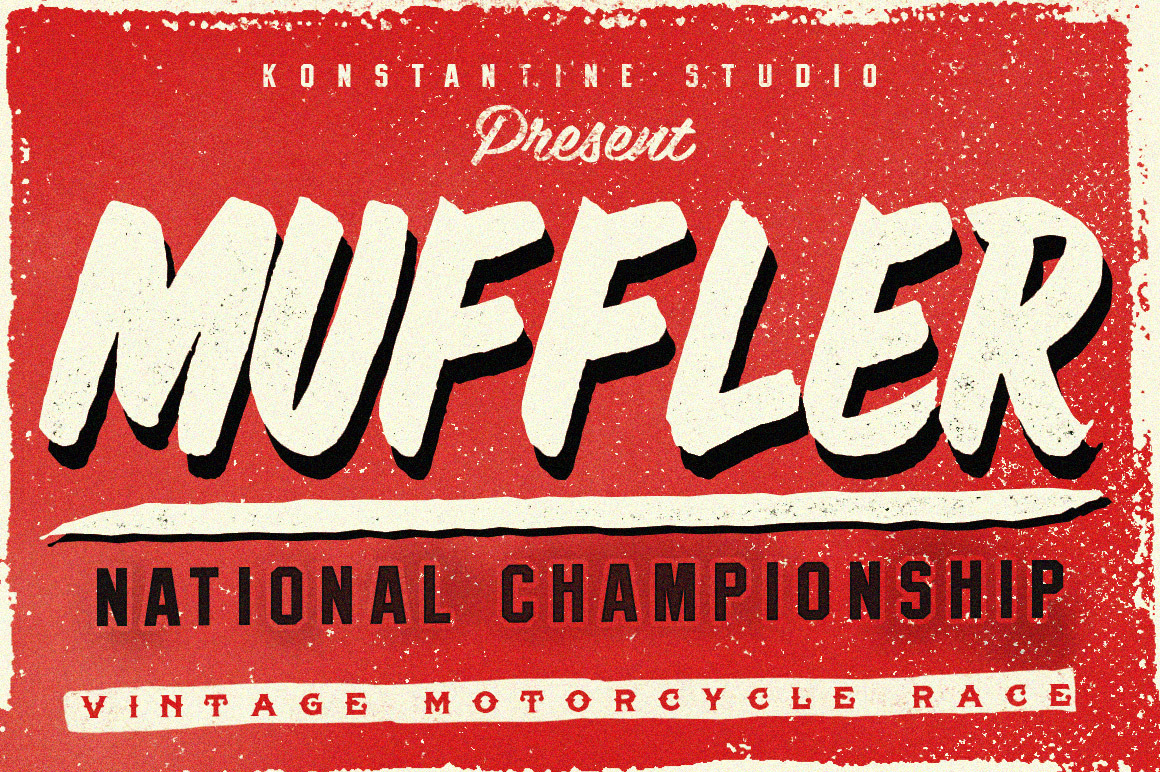
Muffler Brush Hand Lettering font
MUFFLER
Inspired by the old vintage poster of Grand Prix and old racing stuff ads, comes with the authentic handmade from pen brush to give you the manual feel and fabulous vintage vibe.
It comes with 2 version, clean and dusty version, the dusty version comes from the ideas that muffler itself blows everyone behind with the dust of tracks so the rider can say "feel my dust!"